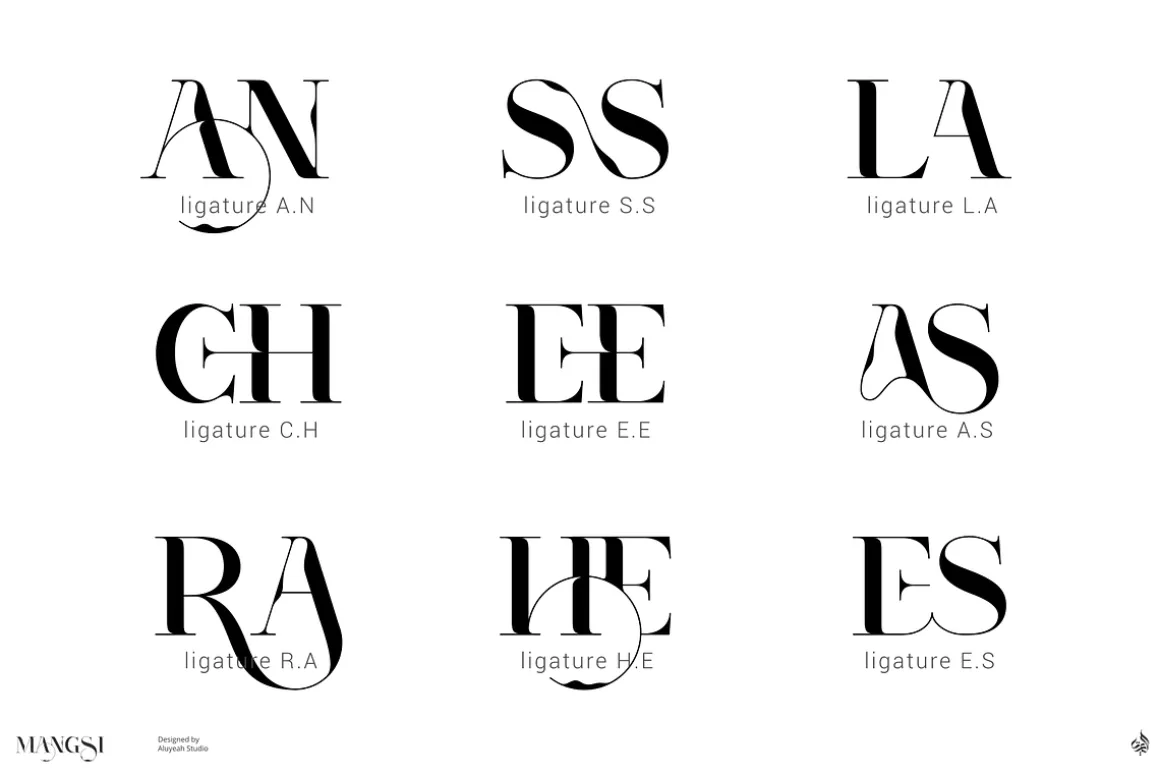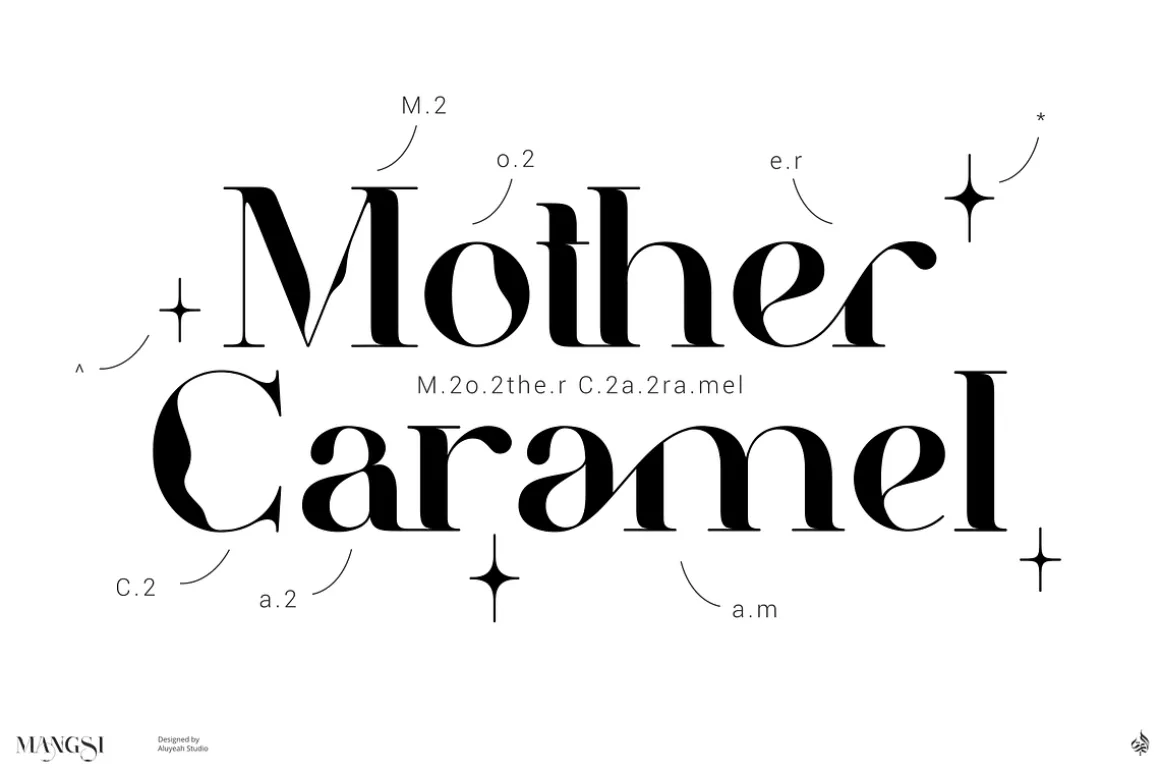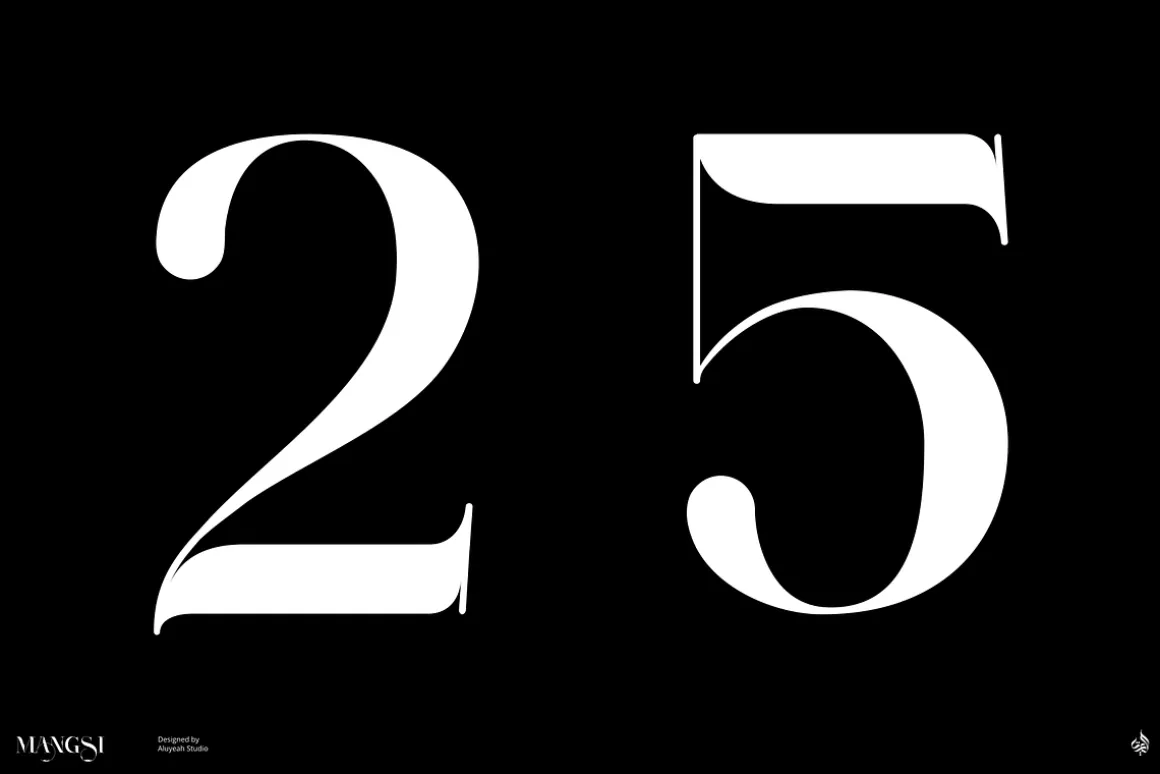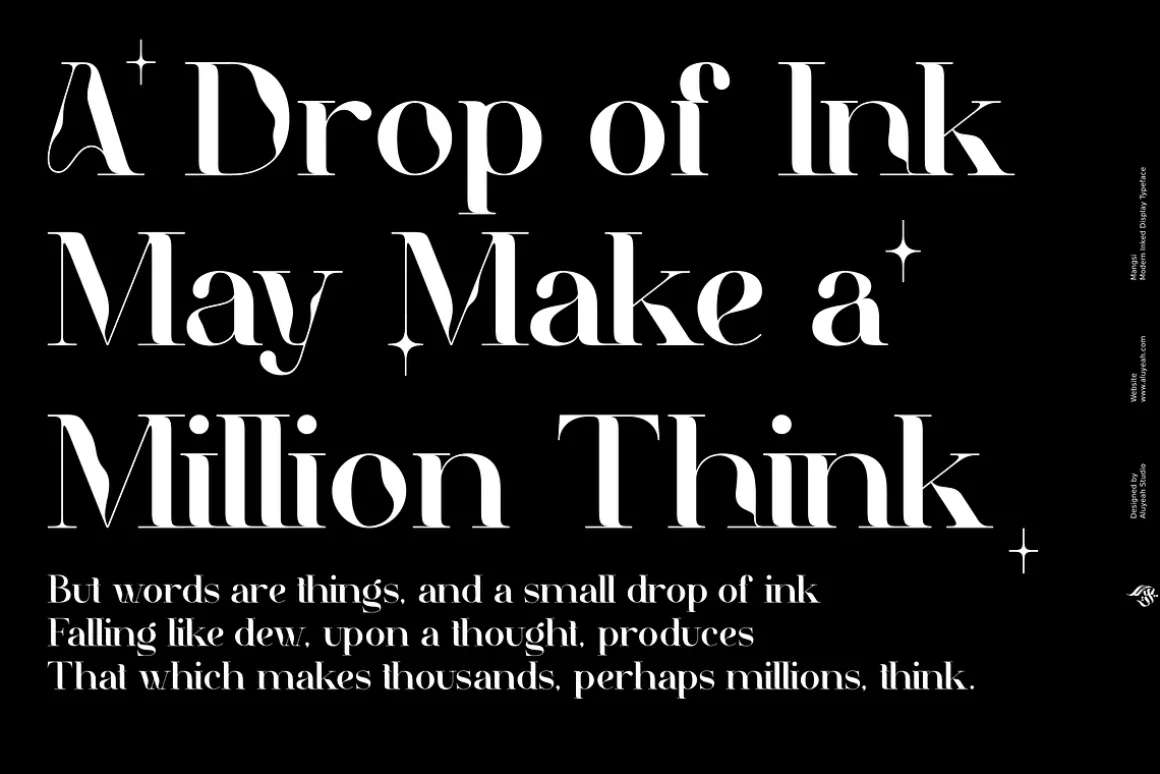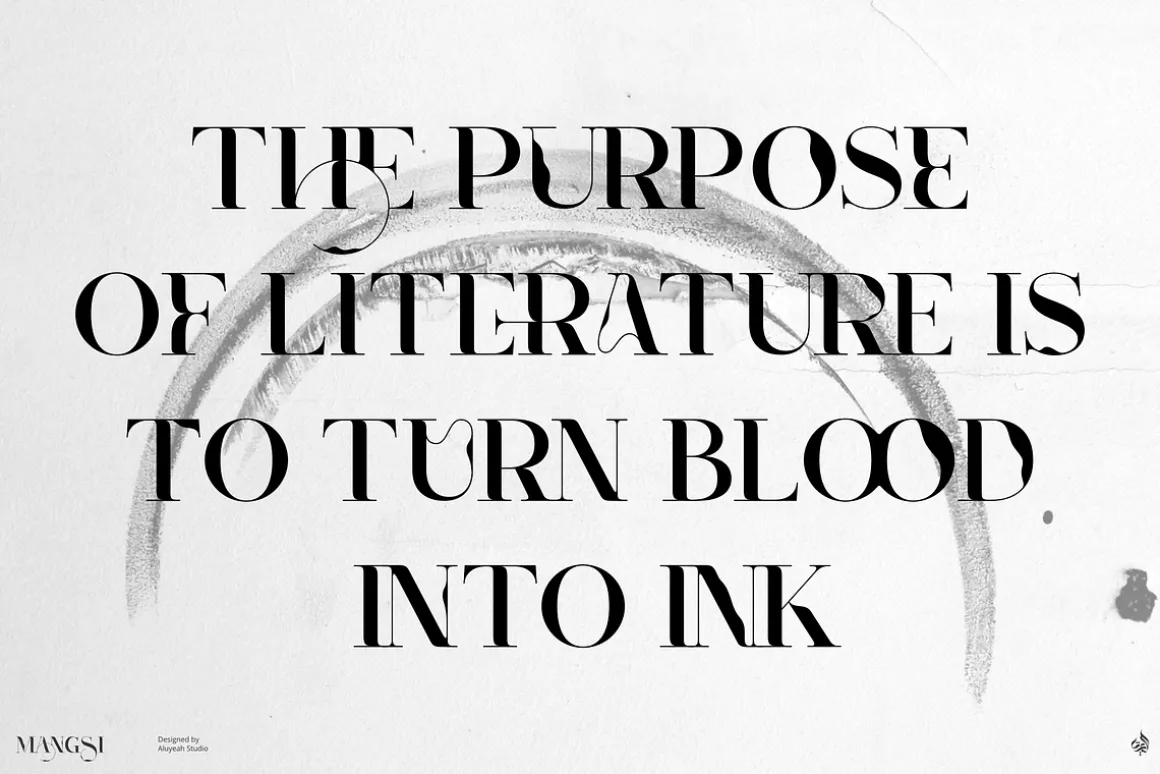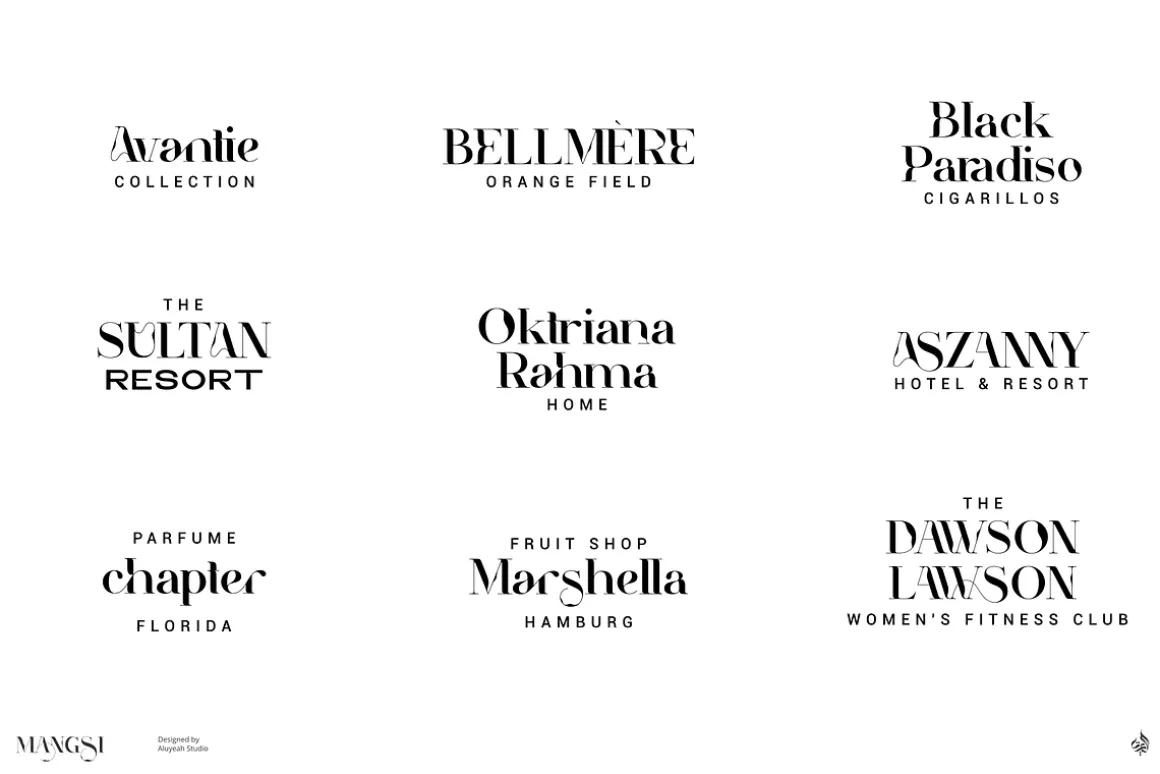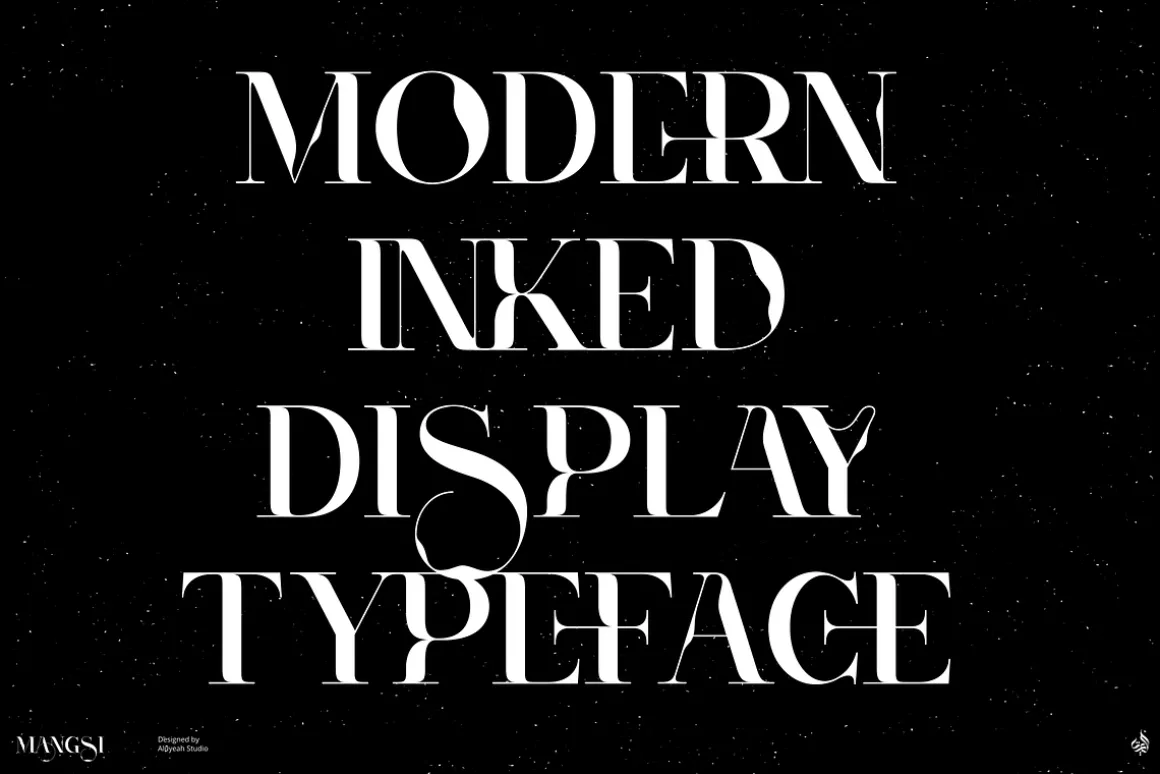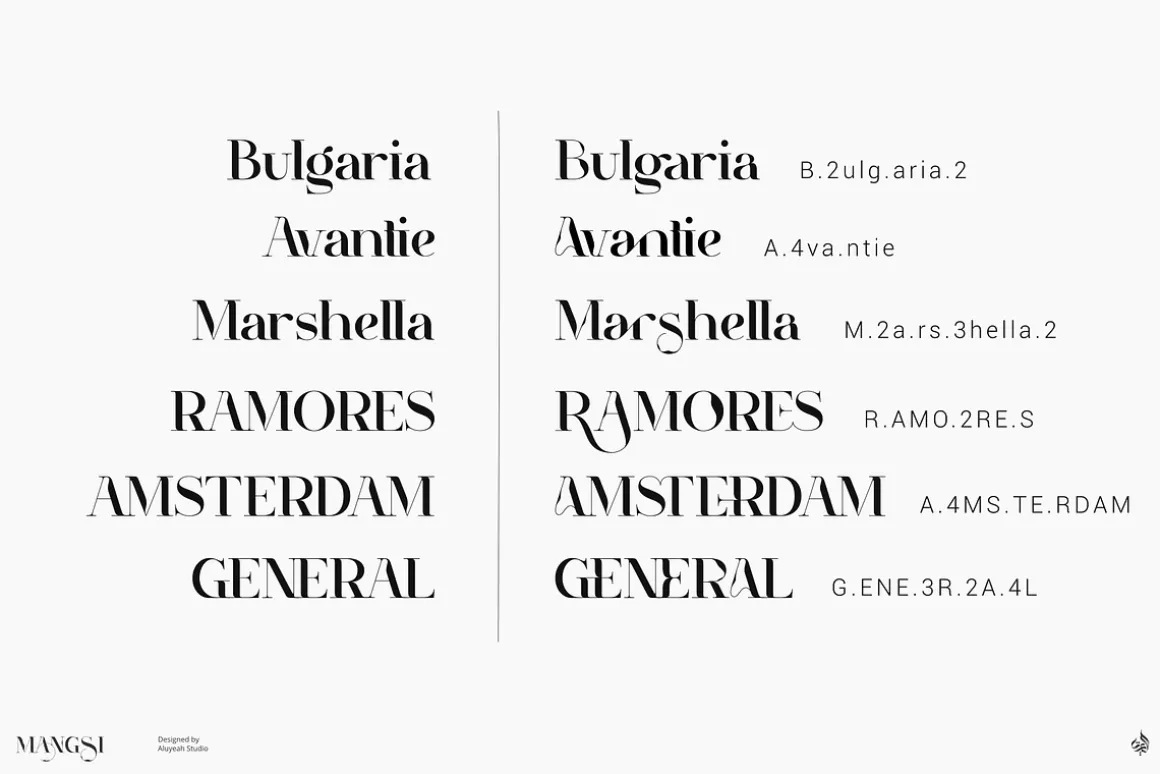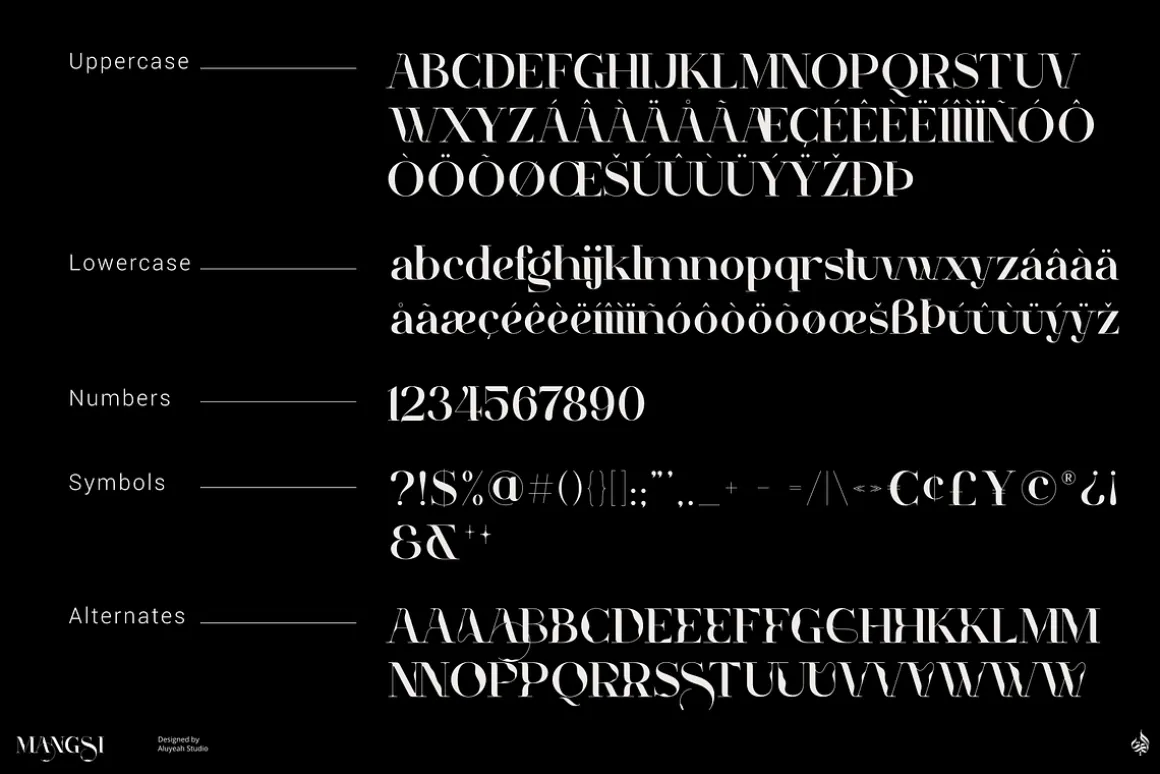
Mangsi in Javanese means ink. We want to create a modern display typeface with an inked-like feel by combining clean modern serif strokes, brush strokes and the curved line made by the ink tank.
Mangsi is a modern inked display typeface that unites the beauty of the old lines with the clean modern lines. A simple, yet distinctive, elegant font that can be applied to many areas of design. Coming with 170+ stunning and super easy to use alternates and ligatures.
Very suitable for magazine, headline, website, ads, product package and all type of design project you have.
- Super Easy to Use alternates – It’s OpenType support but you can easily call alternates character using special combination like A.2 S.3 R.A a.n etc.
To get results like the preview just type M.3A.NGS.3I